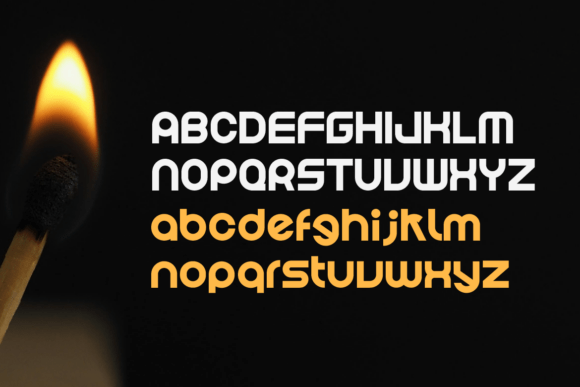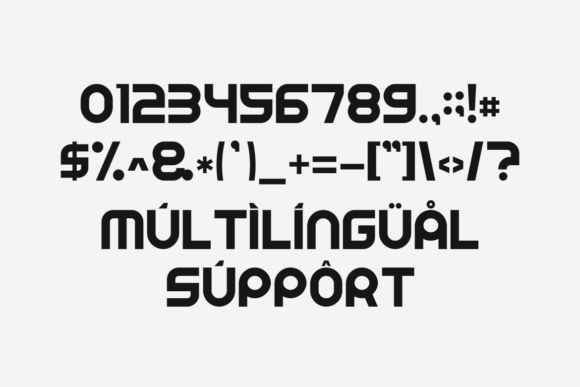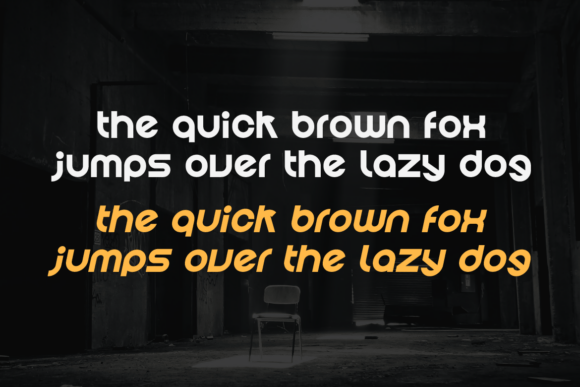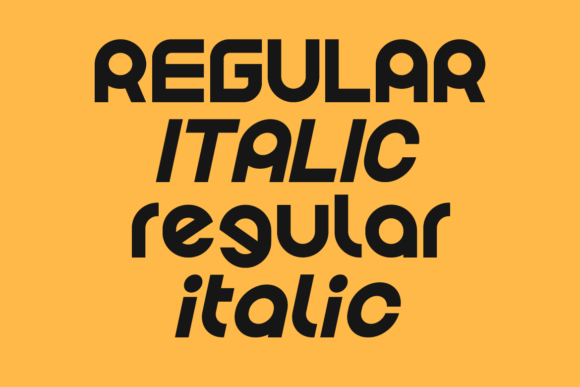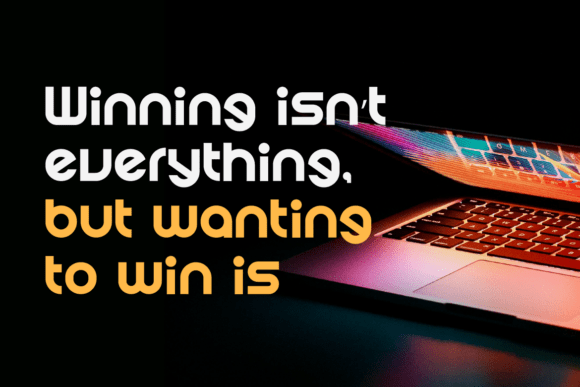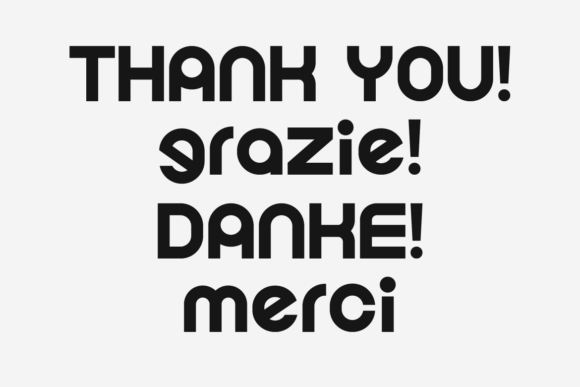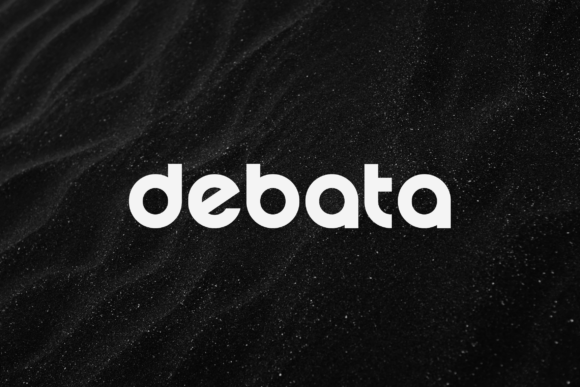
Introducing Debata Font: The Epitome of Modern Sans Serif Typography
In the realm of typography, the right font can make all the difference in the aesthetic and effectiveness of a design project. For those seeking a modern, sleek, and professional look, Debata Font emerges as an exceptional choice. Debata is a modern sans serif font crafted with simplicity and functionality in mind. Featuring sleek lines, consistent weight, and clean geometry, Debata brings a professional and minimalist touch to any project.
The Design Philosophy Behind Debata
Debata’s design is rooted in the principles of modern typography, focusing on clarity, legibility, and versatility. The font’s sleek lines and consistent weight contribute to its clean and uncluttered appearance, making it an ideal choice for a wide range of applications, from digital interfaces to print materials. The clean geometry of Debata ensures that it remains highly legible, even at smaller sizes, which is crucial in today’s multi-device world.
Key Features of Debata Font
- Modern Sans Serif Design: Debata boasts a contemporary sans serif design that fits well with current design trends while maintaining timeless appeal.
- Sleek Lines and Consistent Weight: The font’s sleek lines and consistent weight across all characters contribute to its streamlined appearance.
- Clean Geometry: The geometric cleanliness of Debata enhances its legibility and makes it versatile for various design projects.
- Professional and Minimalist Touch: Debata adds a professional and minimalist touch to any project, making it suitable for branding, advertising, and editorial design.
- High Versatility: Whether it’s for digital platforms, print materials, or both, Debata’s versatility shines through, adapting seamlessly to different mediums and sizes.
Applications of Debata Font
The versatility of Debata Font makes it suitable for a myriad of design applications. Here are some of the areas where Debata can make a significant impact:
- Branding and Logo Design: Debata’s modern and clean look makes it an excellent choice for branding and logo design, helping brands appear contemporary and professional.
- Digital Interfaces: For websites, apps, and digital platforms, Debata’s legibility and sleek design enhance user experience.
- Print Materials: From brochures and business cards to posters and magazines, Debata brings a touch of sophistication and elegance to print materials.
- Advertising: Debata’s professional appearance makes it a great choice for advertising materials, helping to convey messages clearly and effectively.
- Editorial Design: For editorial projects such as newspapers, magazines, and books, Debata’s readability and aesthetic appeal are invaluable.
Why Choose Debata Font?
Choosing Debata Font for your design projects comes with several advantages:
- Contemporary Look: Debata gives your designs a contemporary look that aligns with current trends.
- Improved Legibility: Its clean design and consistent weight improve legibility across various mediums.
- Versatility: Debata’s adaptability to different design applications makes it a valuable addition to any designer’s toolkit.
- Professionalism: The font’s sleek and minimalist design adds a professional touch to any project.
Debata Font stands out as a modern sans serif font that embodies simplicity, functionality, and a professional aesthetic. Its sleek lines, consistent weight, and clean geometry make it an excellent choice for designers and crafters looking to add a touch of modernity and sophistication to their projects. With its versatility and legibility, Debata is poised to become a go-to font for a wide range of design applications, from digital interfaces to print materials. Whether you’re working on branding, advertising, editorial design, or digital products, Debata Font is a valuable resource that can elevate the quality and impact of your work.